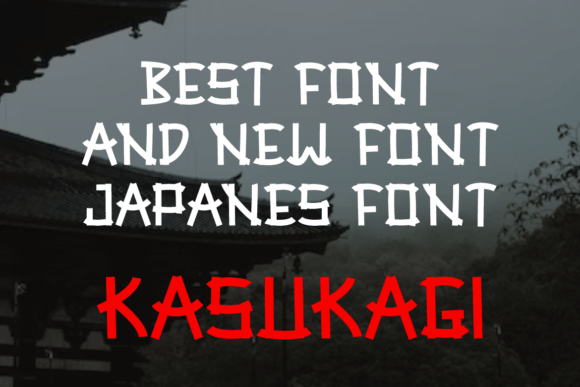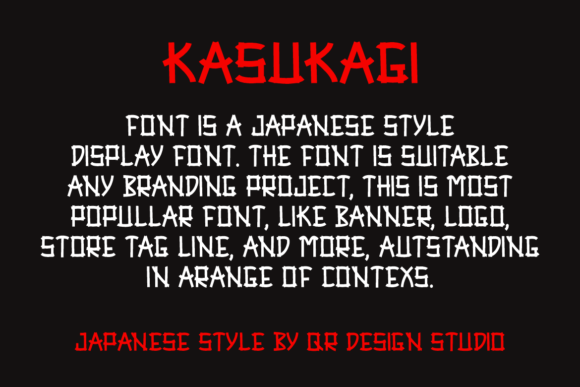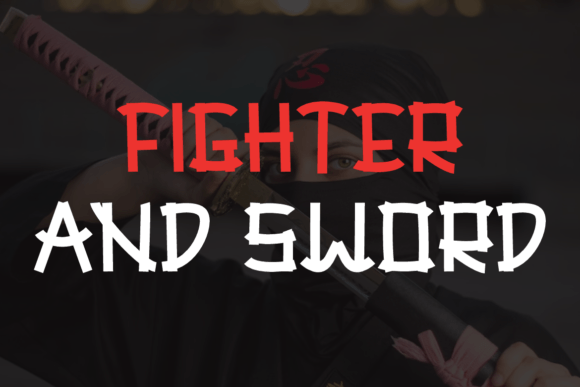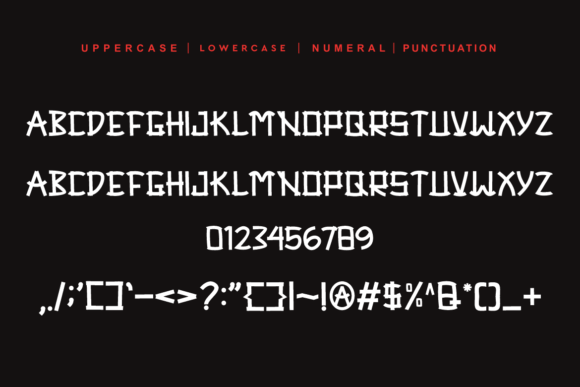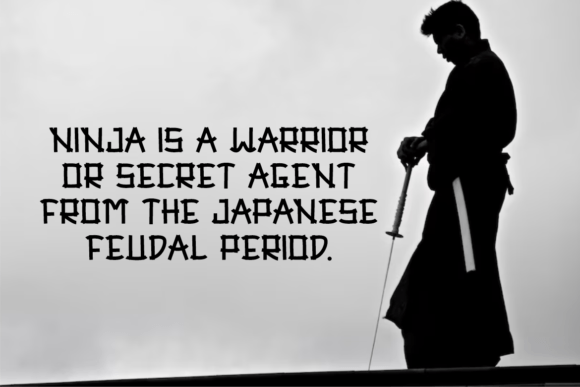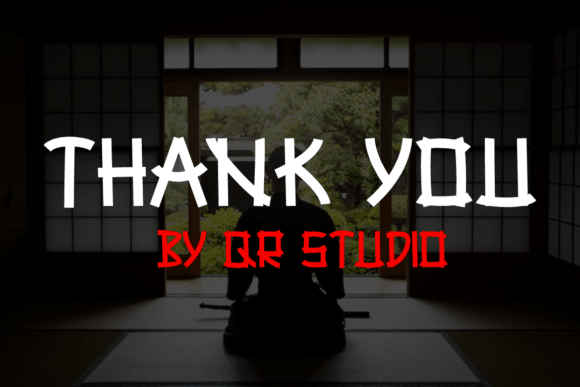
Introduction to Kasukagi Font
Kasukagi is a bold and authentic display font that beautifully captures the essence of Japanese style.
With its strong and confident strokes, this font evokes a sense of traditional elegance and modern sophistication Each character is meticulously crafted, staying true to the intricacies and aesthetics of Japanese calligraphy.
Key Features of Kasukagi Font
Why Choose Kasukagi Font?